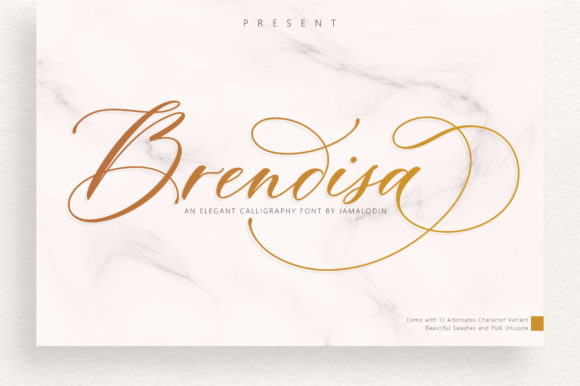
Unleash the Spirit of Wanted Posters with Brendisa Font: A Captivating Calligraphy Script for Bold Storytellers
In a world yearning for authenticity and unique expression, Brendisa Font emerges as a modern calligraphy script that captures the essence of wild adventures and untamed spirits. This captivating font, meticulously crafted by Jamalodin, is a testament to the enduring allure of wanted posters, where every stroke tells a tale of intrigue, mystery, and the untamed frontier.
As you embrace Brendisa Font, you'll embark on a creative journey where imagination reigns free. Whether you're a seasoned designer seeking to add a touch of rugged charm to your projects or an aspiring artist yearning to capture the essence of the Wild West, Brendisa Font is your steadfast companion.
With its PUA-encoded characters, you'll have effortless access to a treasure trove of glyphs and swashes, allowing you to weave intricate designs and unleash your creative flair like never before.
So, if the lure of the open road beckons and the spirit of adventure courses through your veins, let Brendisa Font be your trusted guide, leading you to uncharted territories of creativity and storytelling. Seize this opportunity to make a statement with every design, every poster, and every piece of art you create.